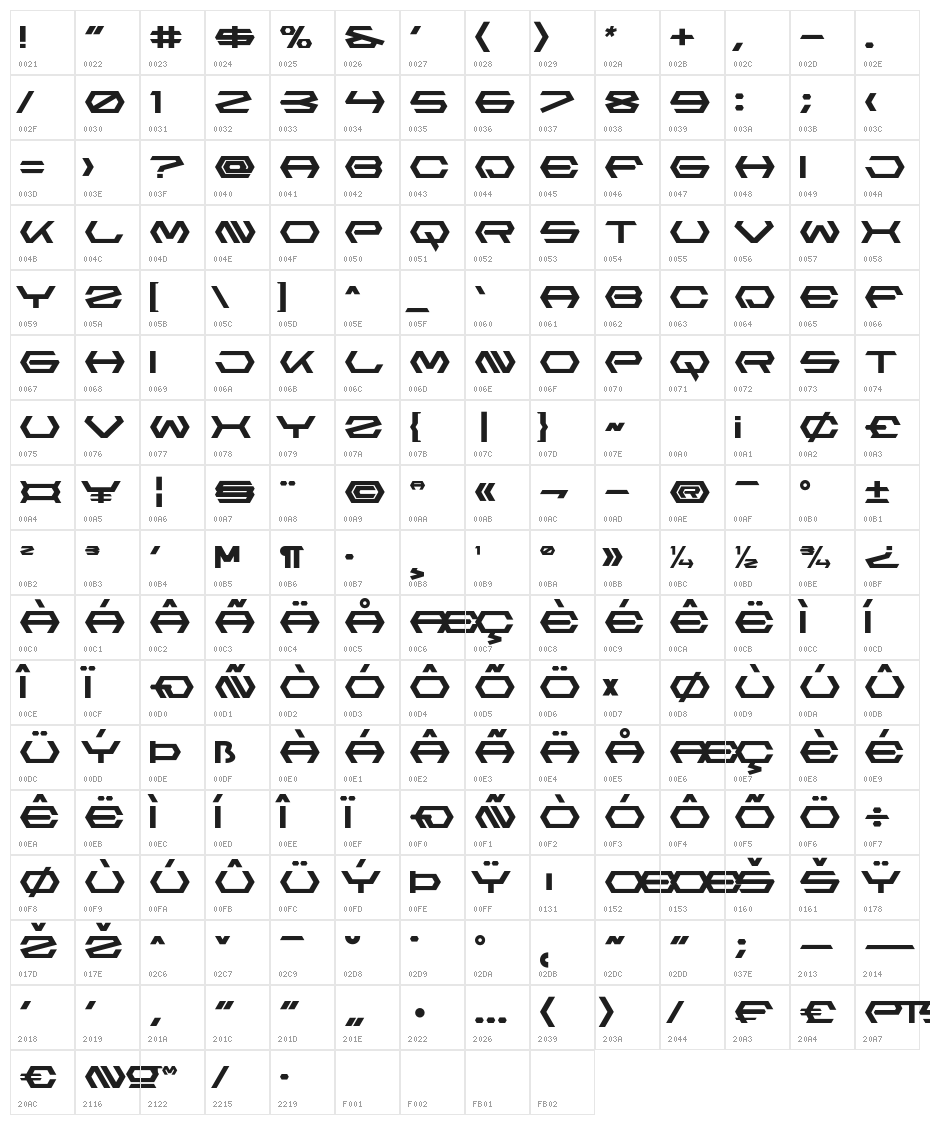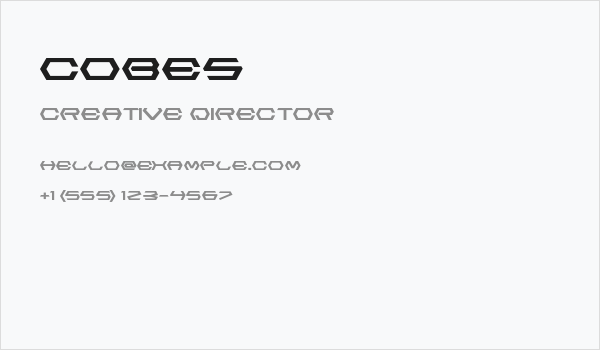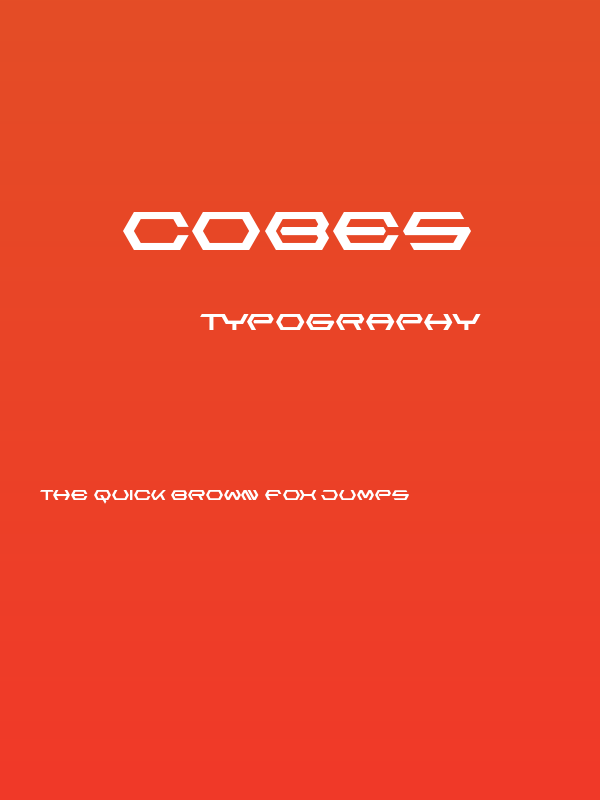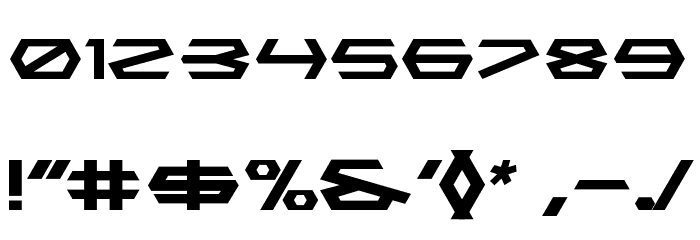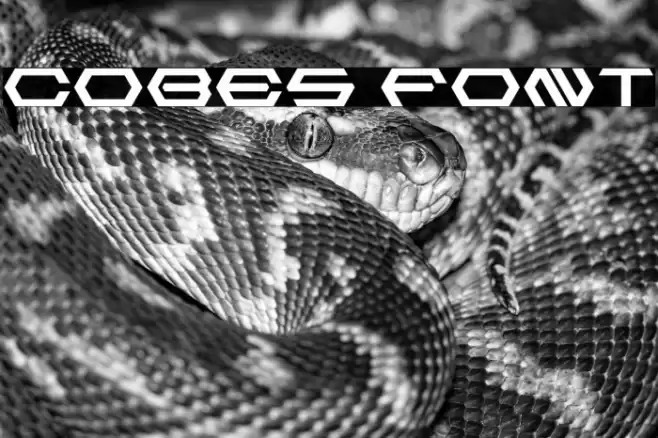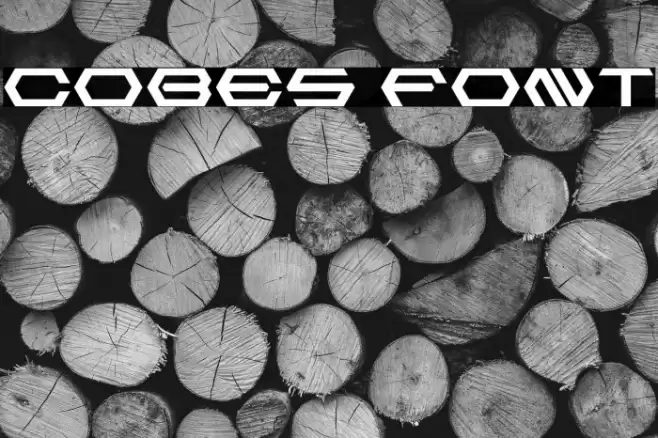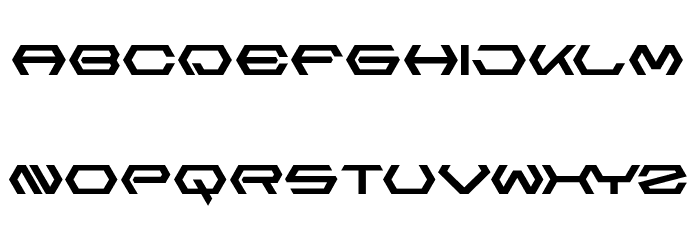
Cobes Font
Cobes Description
This font features a bold, geometric design with sharp angles and a futuristic aesthetic. Each character is constructed with a series of straight lines and angular cuts, giving it a distinct, edgy appearance. The uppercase and lowercase letters maintain a consistent style, with the same angular motifs present throughout. Numbers and special characters follow the same design principles, ensuring uniformity across the entire typeface. The font's unique style makes it stand out, ideal for projects that require a modern and technological feel.
| Overall Style | Futuristic |
| Use Case | Logos, Headlines, Posters |
| Proposed Projects | Ideal for technology branding, sci-fi themed projects, video game titles, and modern posters. |